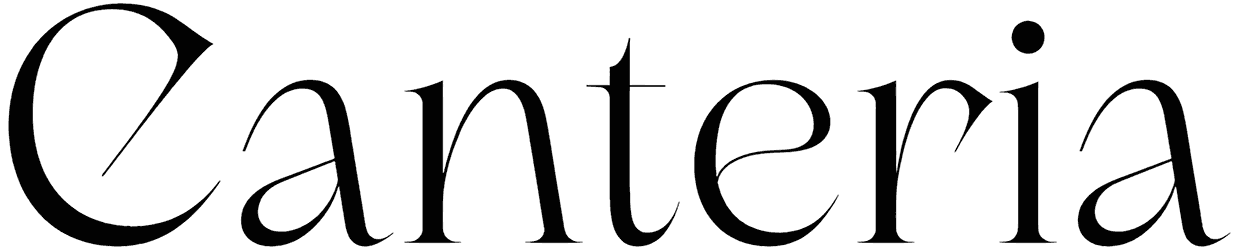
Calm Serif Font
Soft-spoken typography can still hold the room, and Calm Serif font proves it with graceful proportions and a composed editorial tone. Its refined details bring authority without stiffness, making headlines feel thoughtful, premium, and quietly memorable. We’d use this serif font whenever a layout needs elegance that supports the message instead of competing with it.
Skincare labels, literary covers, wellness identities, boutique hotel branding, wedding suites, or slow-living magazines are natural settings for Calm Serif font. Try oatmeal, sage, charcoal, subtle paper grain, delicate photography, and wide margins. The result can feel serene, cultivated, and beautifully intentional at first glance.
Designed by: Riyadh Rahman